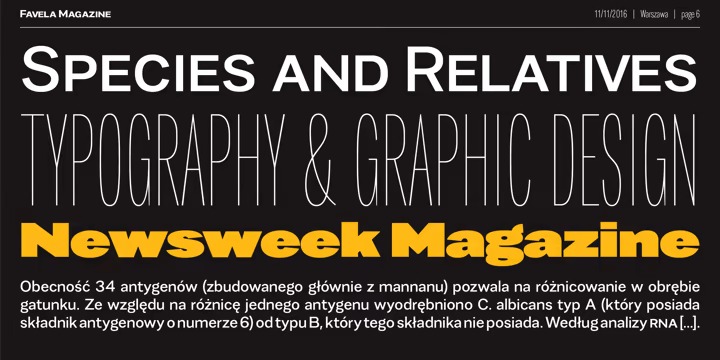
Favela Font Family
Favela Sans Serif Font
This font is a mellow sans serif typeface designed by Borutta Group. It is characterised by scalable construction of glyphs – hairline version is at the same time condensed, regular is normal, and black is super extended, with short ascenders. Favela was made mainly for branding and display purposes but middle weights are prefect for short texts. Thanks to characteristic features compilation of extreme styles will work on layouts, websites and prints. Favela type Family consist 18 styles with scalable x-height and width.. All styles include over 500 glyphs with set of small caps.